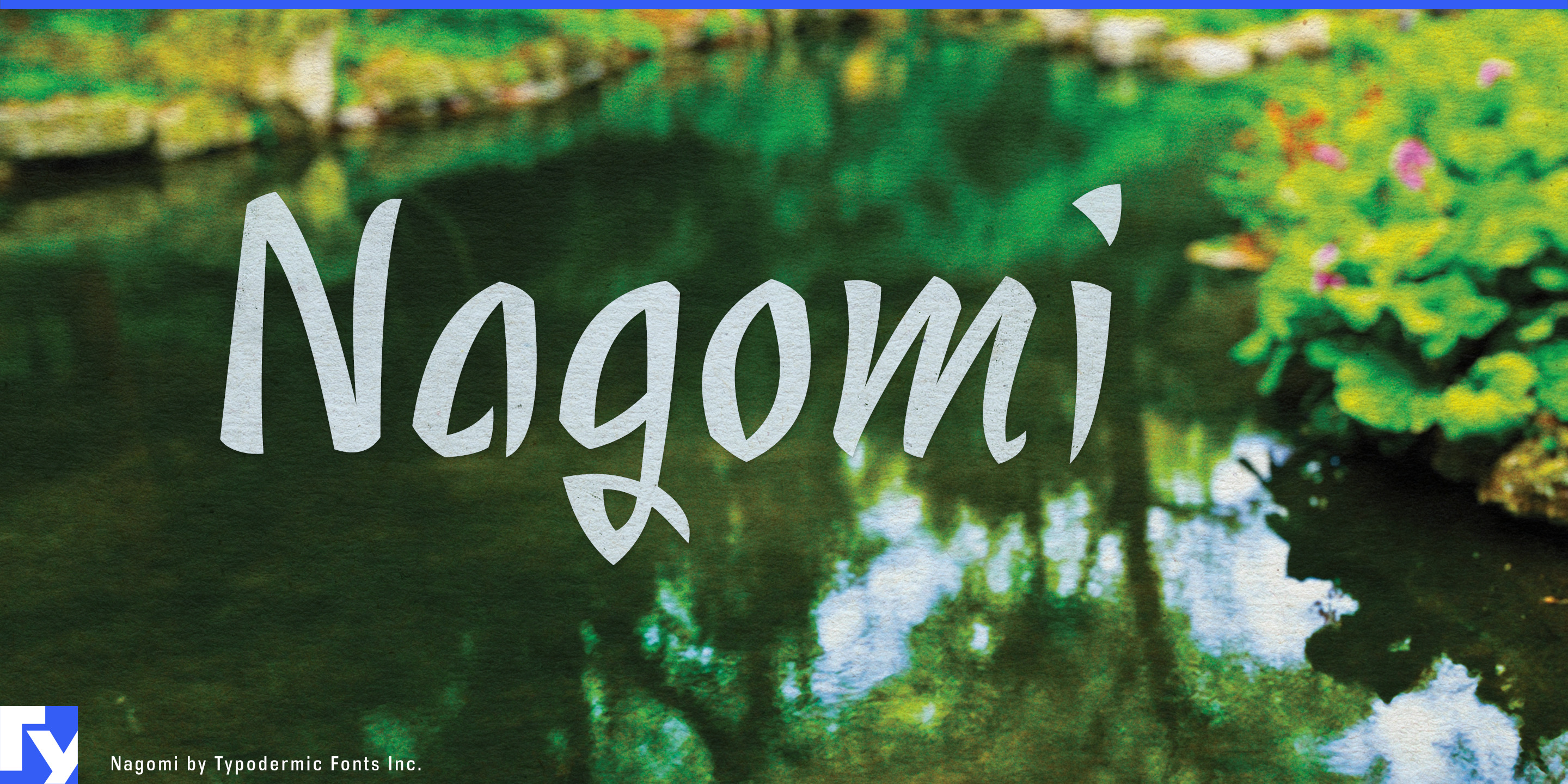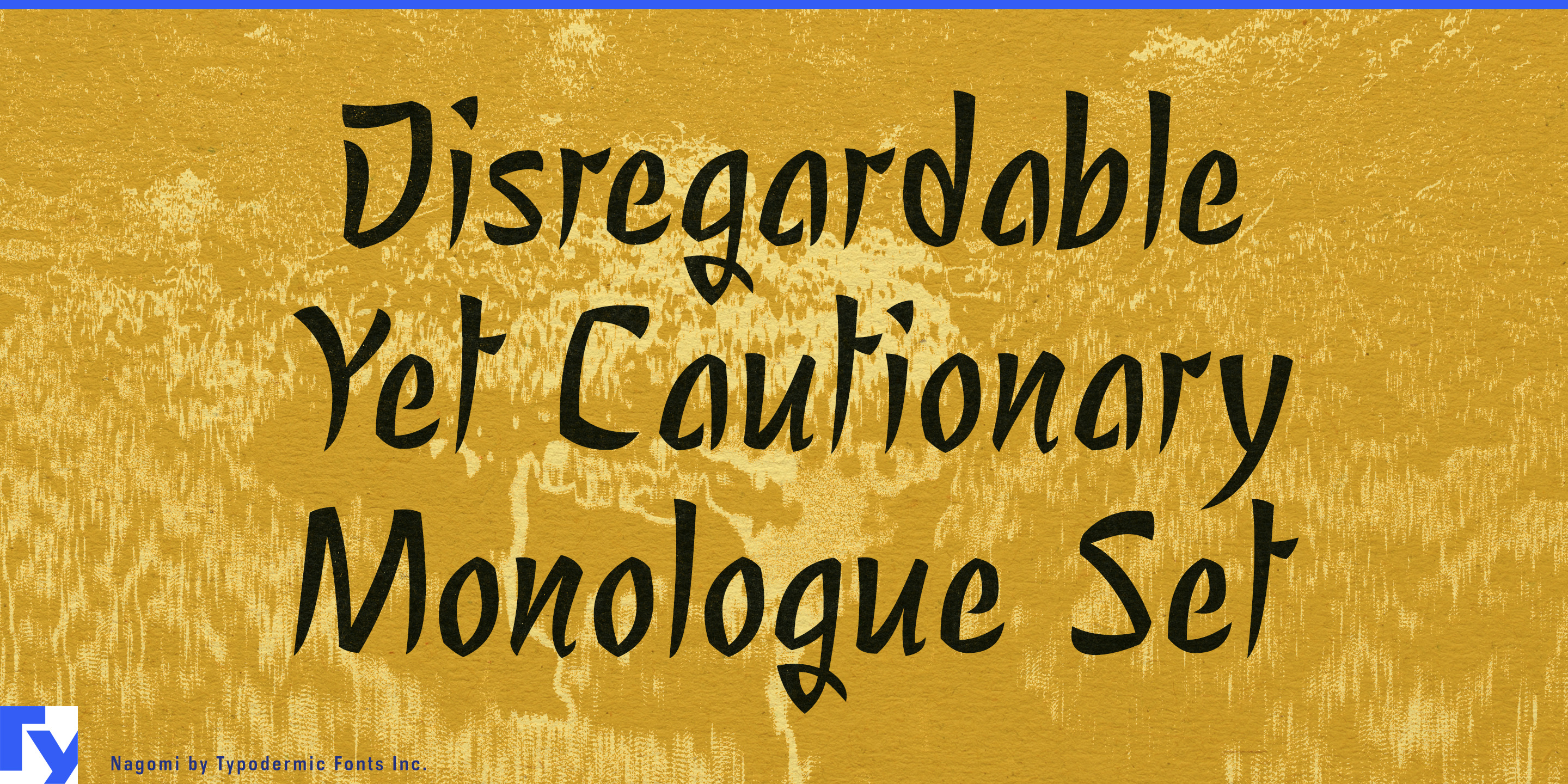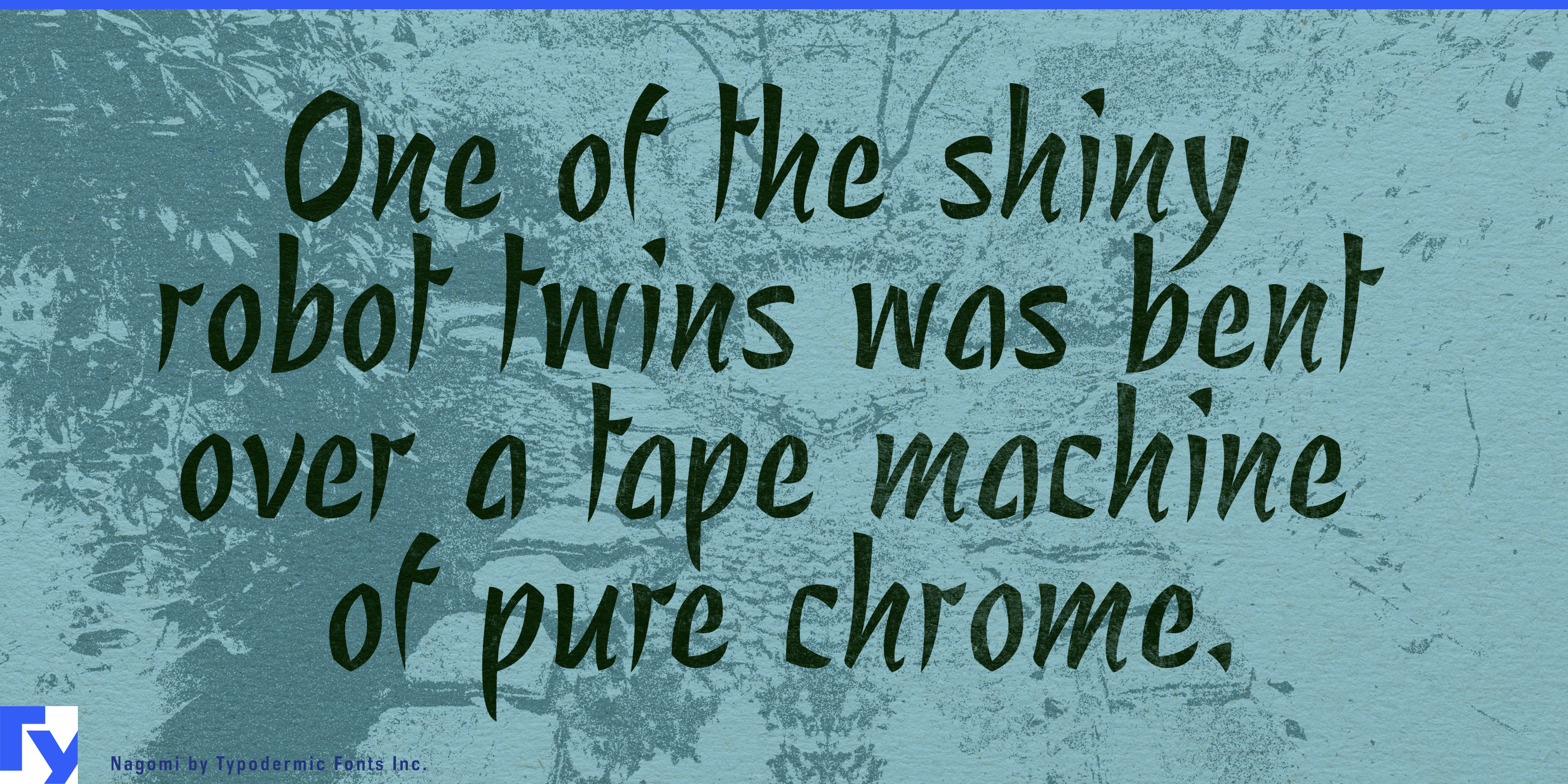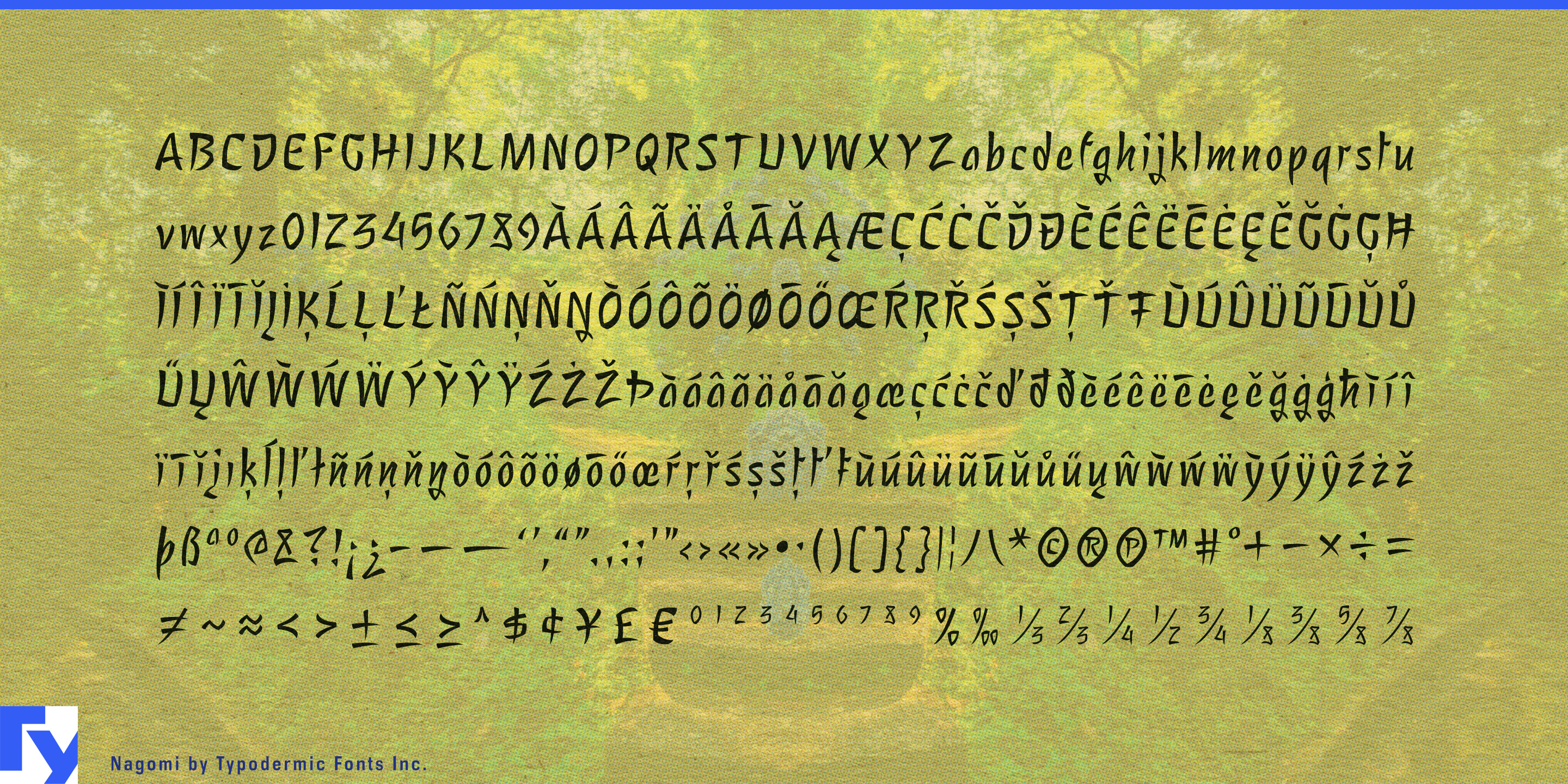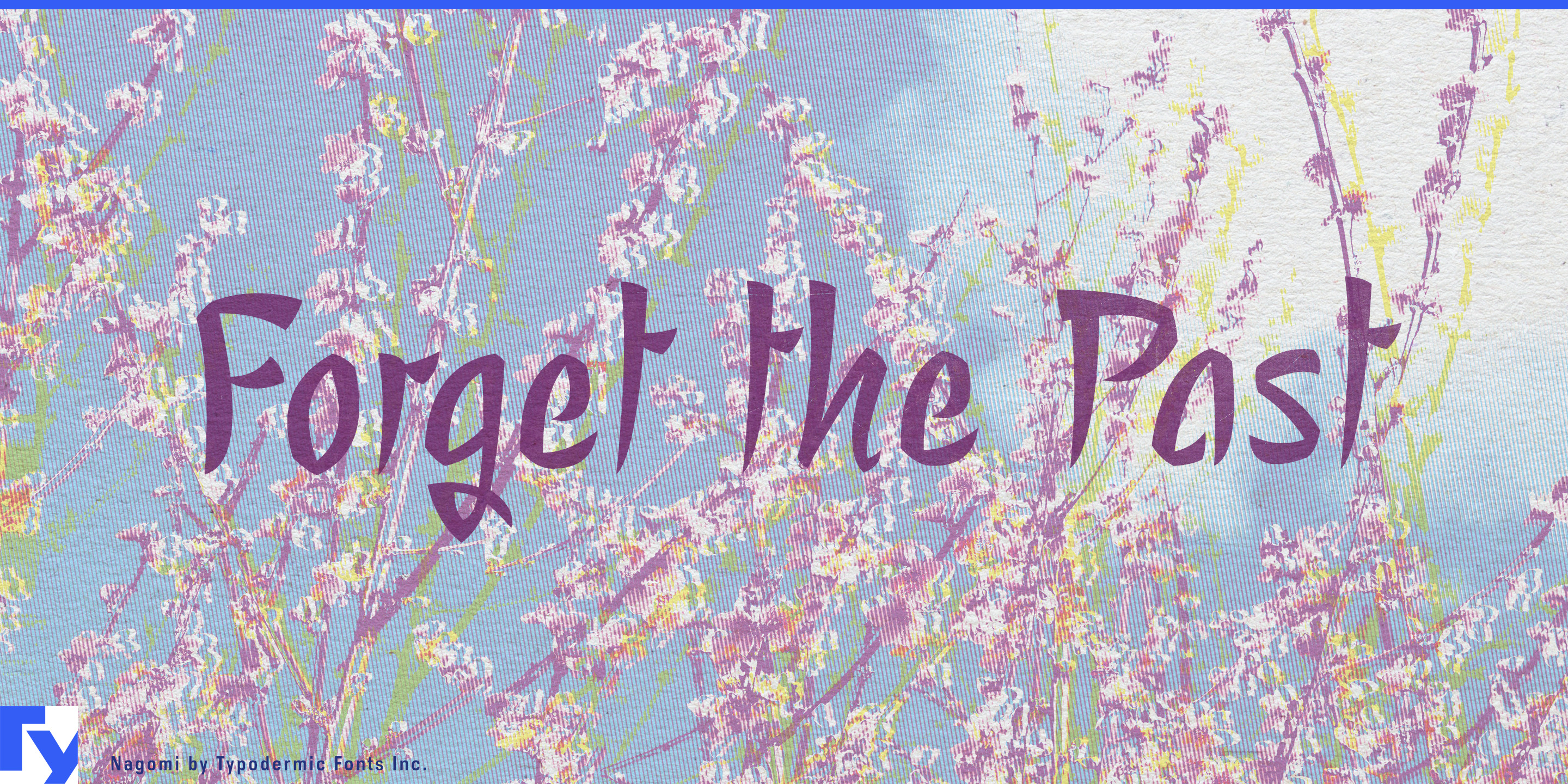
Nagomi
Wellness branding has an awkward typographic problem. Geometric sans serifs can make a yoga studio or spa feel clinical; high-contrast serifs can push it toward luxury cosmetics; loose handwriting can look homemade; energetic brush lettering often brings more motion than a quiet environment needs. Nagomi offers another option: a calm, controlled brush display face that adds a human presence without disturbing the atmosphere.
Nagomi is particularly suited to yoga and Pilates studios, meditation and breathwork programs, massage and bodywork practices, resort spas, wellness hotels, and restorative retreats. Use it for studio names, class series, treatment names, retreat programs, exterior signs, window graphics, wall lettering, and short campaign headlines. Pair it with a restrained sans serif for schedules, prices, booking information, and longer text; Nagomi supplies the expressive layer while the rest of the system stays clear and contemporary.
It also fits the growing world of recovery and restorative wellness: sauna clubs, contrast-therapy studios, cold-plunge facilities, sleep retreats, and recovery centers that need to feel neither like gyms nor medical clinics. On products, Nagomi works well for bath salts, massage oils, aromatherapy blends, spa skincare, sleep products, herbal wellness ranges, and relaxation kits, especially for collection names, scent names, and short label headings.
Tea is a natural neighboring territory. Matcha, loose-leaf tea, herbal infusions, botanical drinks, tea-house identities, seasonal blends, and gift collections all suit Nagomi’s measured, unhurried rhythm.
Nagomi’s visual language has Japanese roots without relying on imitation Japanese lettering. Its forms began with brush-painted hiragana and katakana; those strokes were mechanically repurposed and reshaped into a Latin alphabet. The result is narrow, organic, slightly angular brush lettering with the relaxed “zen” quality that makes Nagomi so useful for wellness design.
Nagomi works best where a few words need to slow the design down: the name above the timetable, the treatment above the price list, the blend name on the tea tin, or the retreat title on a quiet photograph.